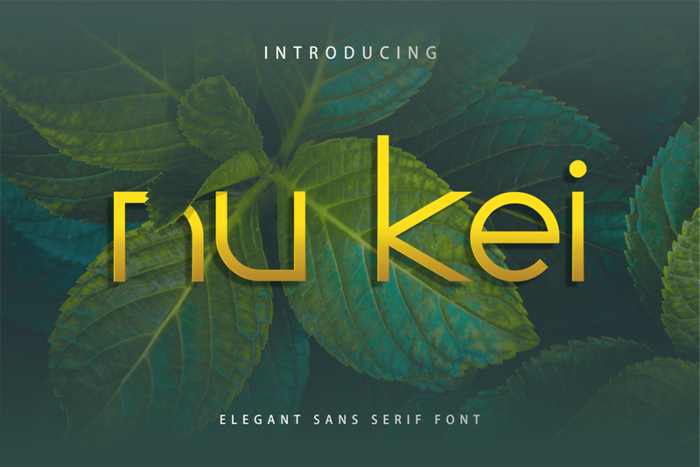
Nu Kei Font
Nu Kei is a new font display with a clean feel with a futuristic modern style, perfect for any extraordinary project that requires an elegant & minimalist taste.